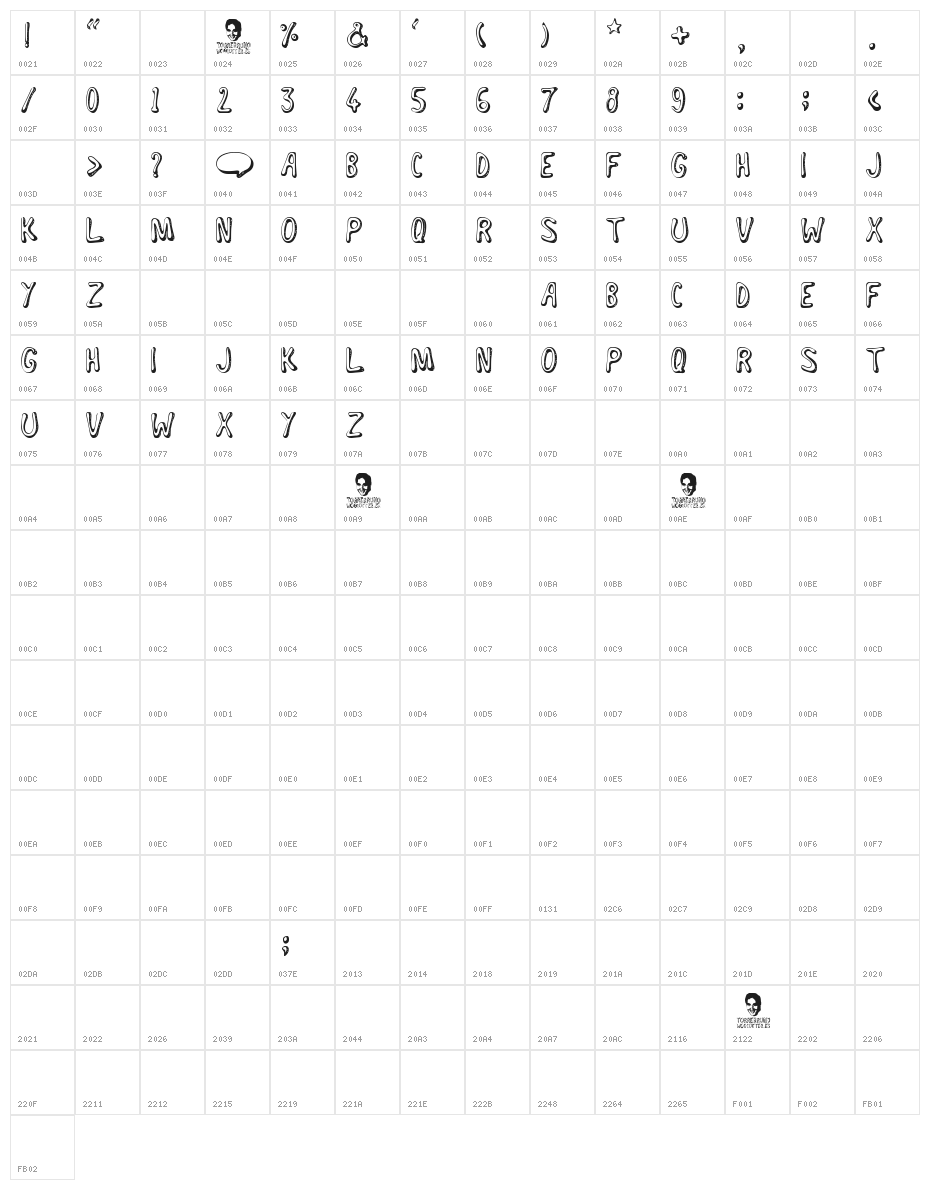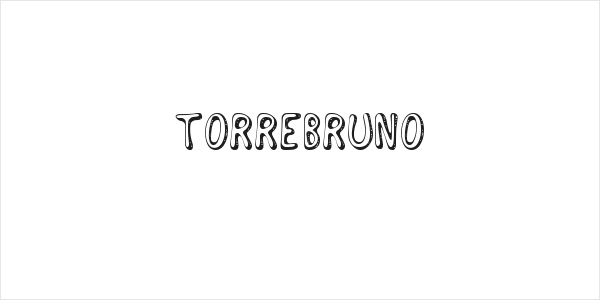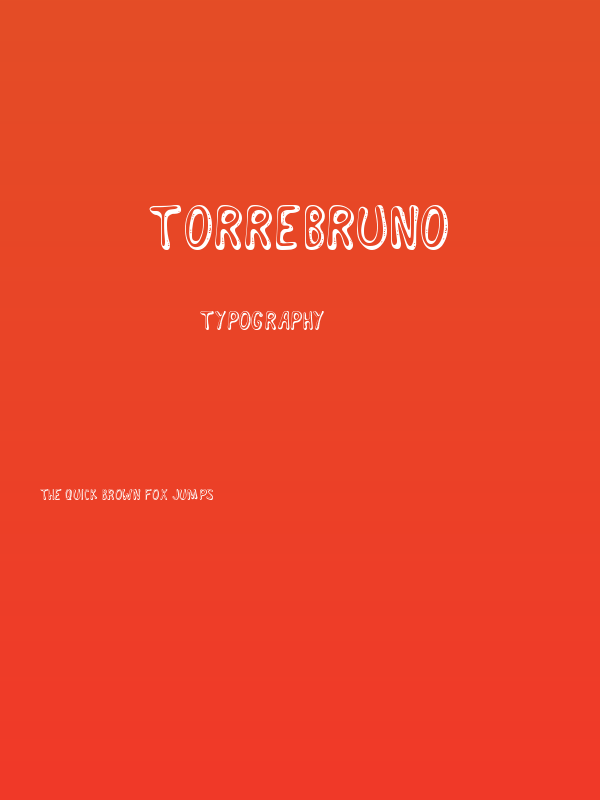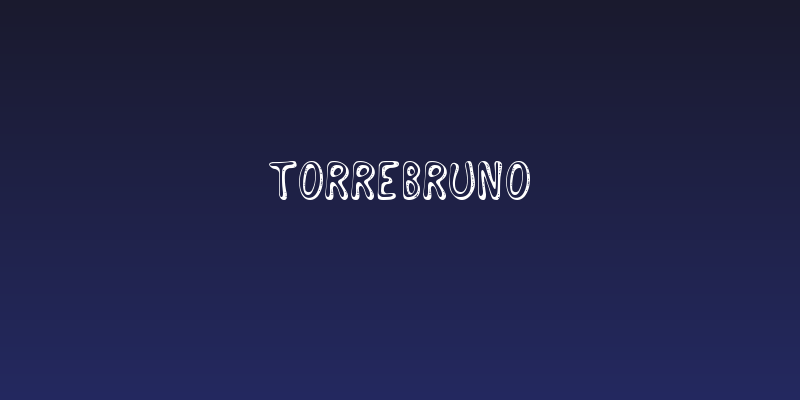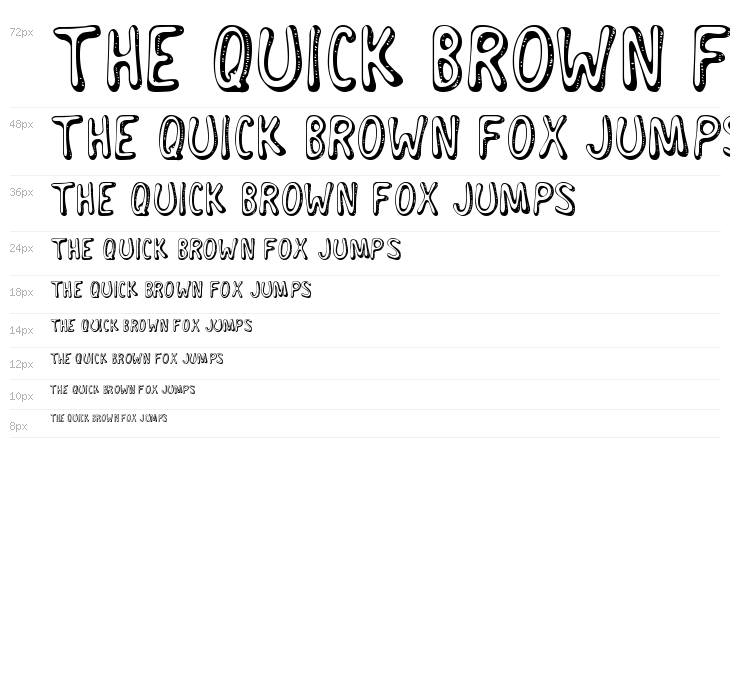
Torrebruno Font
Torrebruno Description
This playful and bold font features a hand-drawn style with a quirky, cartoonish appearance. Each character is outlined with a thick stroke, giving it a three-dimensional effect. The letters are slightly irregular, adding to the whimsical and informal feel. The font includes both uppercase and lowercase letters, numbers, and a variety of special characters. The overall design is reminiscent of doodles or comic book lettering, making it ideal for projects that require a fun and lively touch.
| Proposed Projects | Ideal for children's books, comic strips, playful branding, and creative posters. |